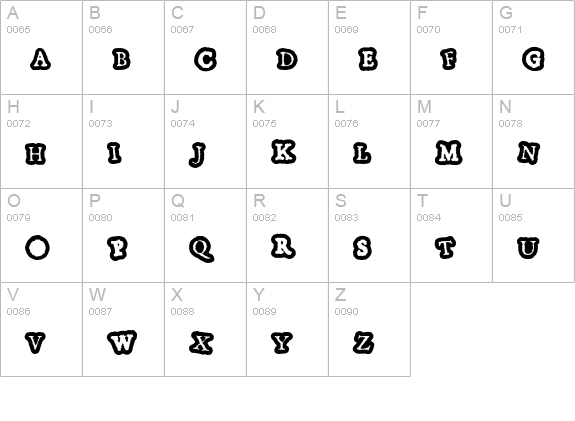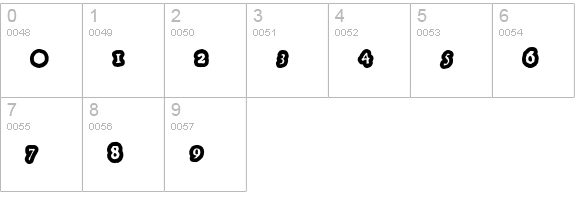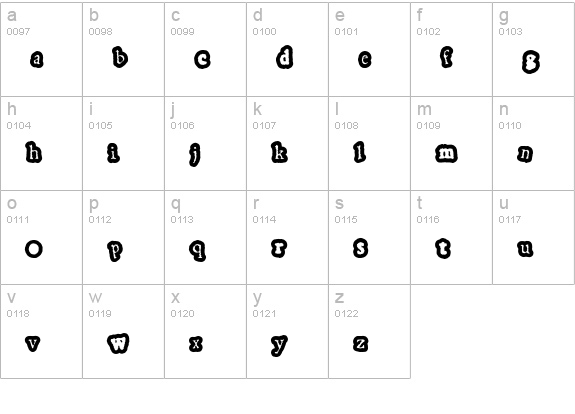
GassyGaut Font Details
Introducing GassyGaut font - a whimsical and playful typeface that is perfect for adding a touch of fun to your designs. With its quirky letterforms and unique style, GassyGaut is sure to make a statement. This font is free for personal and commercial use, making it a versatile choice for all your creative projects. You can download GassyGaut for free at FontsMarket.com and start incorporating its charm into your designs today. Let GassyGaut bring a smile to your audience with its lively and engaging personality.